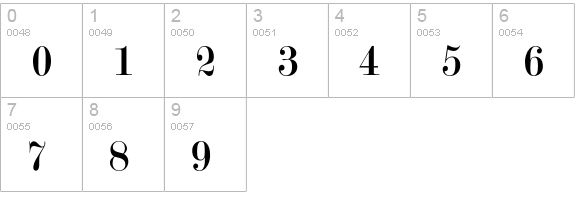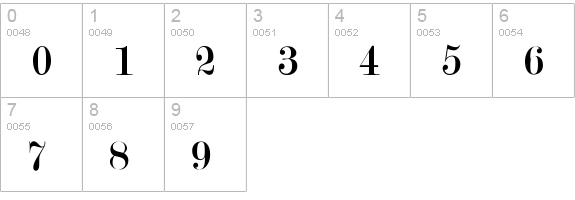
Lifetime font is a beautifully crafted typeface that exudes elegance and sophistication. With its clean lines and modern aesthetic, Lifetime font is perfect for a wide range of design projects, from branding to editorial design. The sleek and versatile design of Lifetime font makes it a great choice for both headings and body text, adding a touch of refinement to any project. The best part? Lifetime font is available for free download at FontsMarket.com. This means that you can easily access this high-quality font without having to spend a penny. Whether you're a professional designer looking to elevate your work or a hobbyist seeking to enhance your projects, Lifetime font is a fantastic choice that won't break the bank. Download Lifetime font today and add a touch of class to your designs.